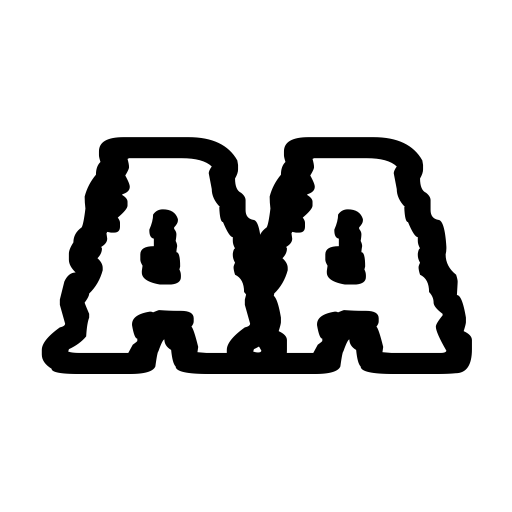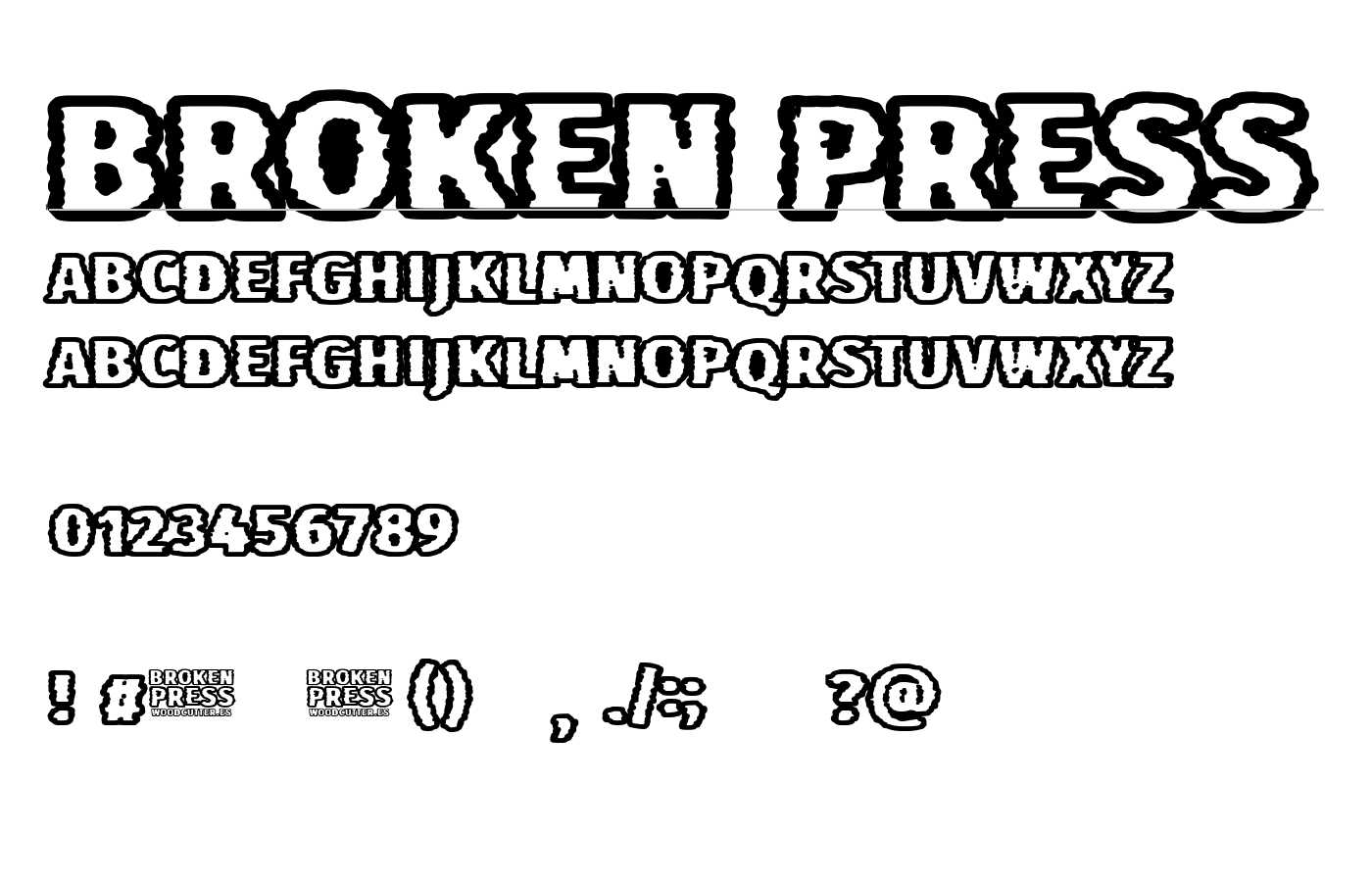
Broken Press is a bold, playful sans serif font with a rough, hand-drawn texture that gives it a distressed, vintage feel. Its thick, blocky letterforms with uneven edges make it perfect for eye-catching headlines, posters, and packaging where a strong, informal personality is desired. This font works well for creative branding and designs that want to convey energy and a handcrafted style.
Broken Press Font
About Broken Press Font